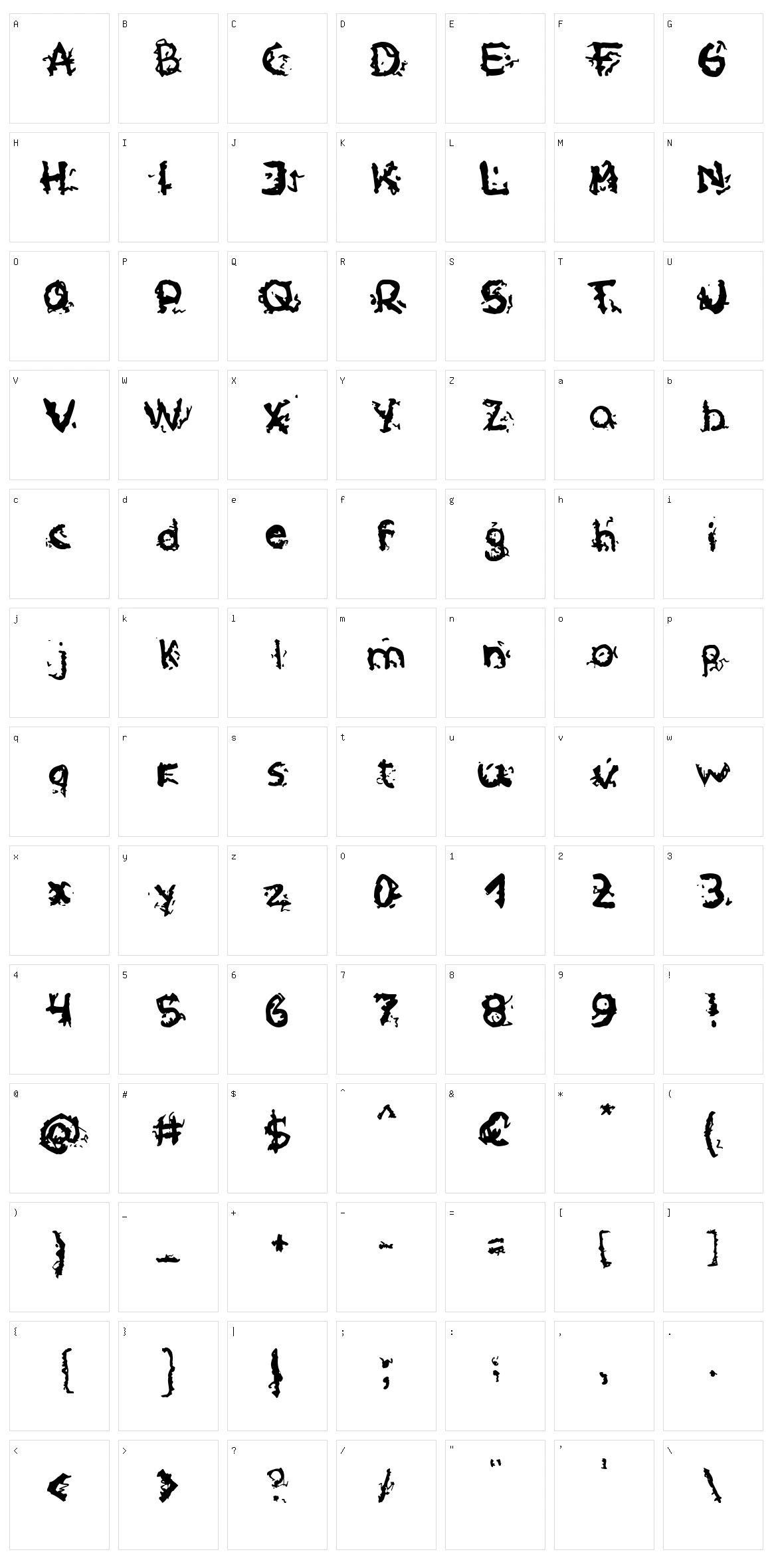
The free font Now you see me, now you don't is carefully designed by jopea302, showcasing a thoughtful balance of creativity and usability and falls under the Trash font style. When you download the ZIP file, it contains only 30.2 KB of font files, making it lightweight and quick to download. Please review the license details below to understand permitted usage and distribution rights. If license information is not available, we recommend using this font for personal projects only or contacting the author directly for commercial usage permissions.